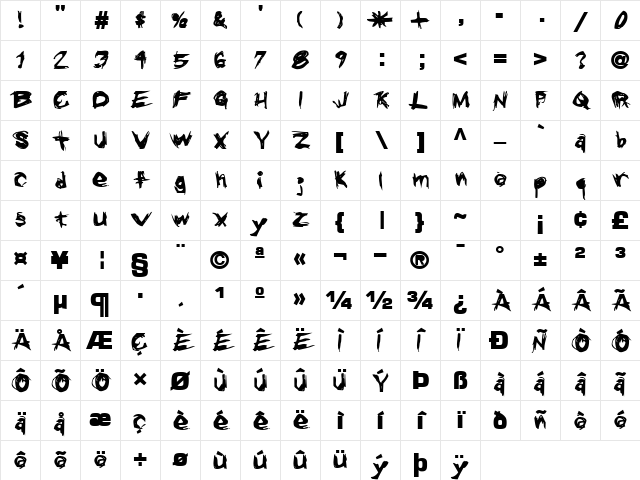
Complete PicketsChargeFont59 Bold glyph index. Displaying only characters natively supported by PicketsChargeFont59 Bold font.
PicketsChargeFont59 is a composed and adaptable typeface that performs quietly and consistently across a wide range of design contexts. Its bold stroke weight gives it real presence on the page.